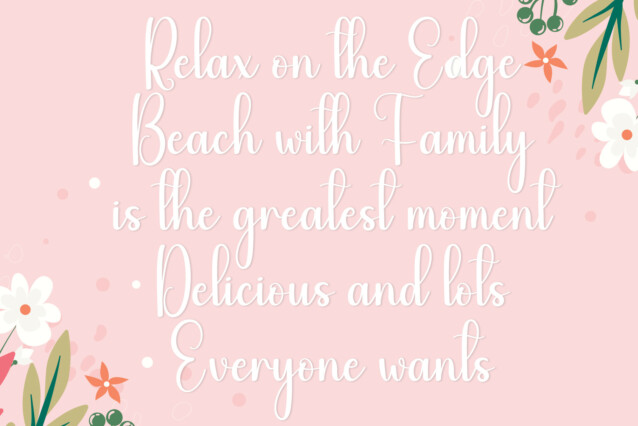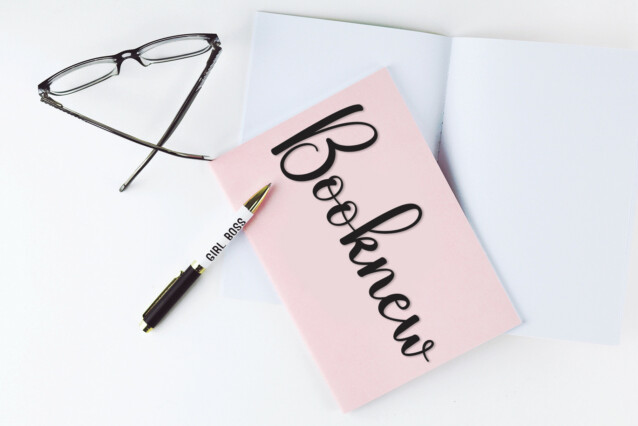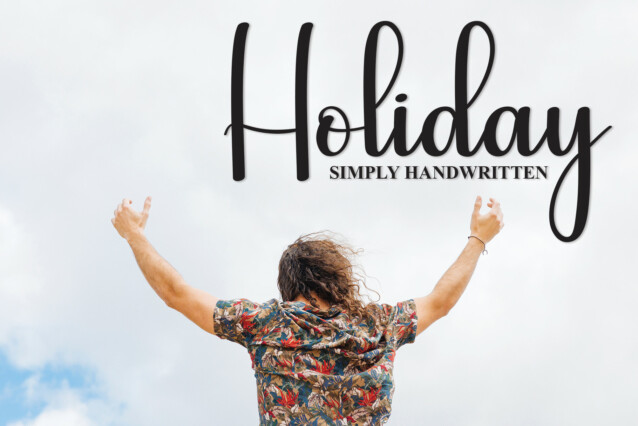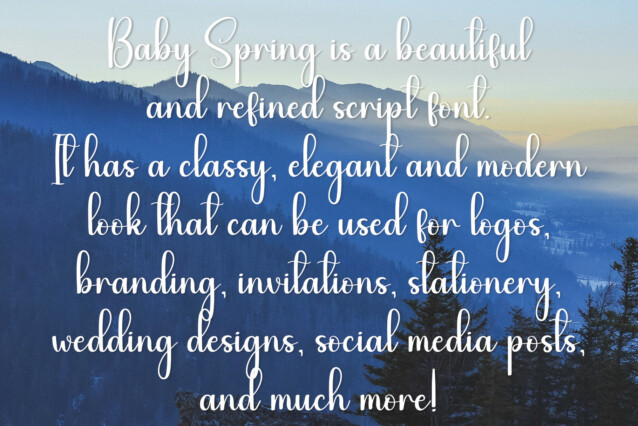
Baby Spring Script Typeface
Baby Spring Script Typeface is a sweet and cursive handwritten font. This gentle font will look gorgeous on a variety of design ideas. It will add a joyful and romantic touch to each of your projects!